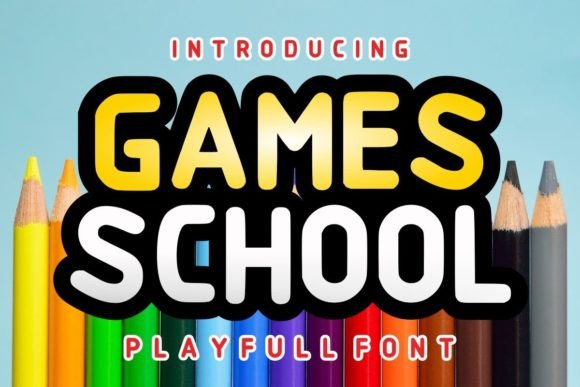
Embark on an exhilarating typographic journey with Games School Font, a display font that exudes coolness and boldness like no other. Step into a world where dynamic effects and captivating designs ignite your imagination, propelling your creative projects to new heights. Games School Font is the perfect companion for crafting captivating headlines that command attention, transforming sporting events into electrifying spectacles, and revving up automotive posters with an adrenaline-fueled edge. Unleash your creativity and design school posters that burst with energy, injecting life into every letterform. Add a touch of playful elegance to text effects and templates, making them stand out from the crowd. Let your logos and monogrammed designs radiate with personality, leaving an unforgettable mark on your audience.
With Games School Font at your fingertips, you'll discover a font that seamlessly blends the past and the future, drawing inspiration from classic arcade games and infusing it with a modern twist. Its eye-catching style is guaranteed to make your designs shine, captivating audiences with its distinctive charm. Whether you're a seasoned designer seeking to elevate your projects or a budding enthusiast looking to make a statement, Games School Font is your ultimate weapon in the realm of typography.
Dive into a world of limitless possibilities, where imagination knows no bounds. Unleash your creativity and let Games School Font guide you on an extraordinary voyage of visual expression. Transform your designs into dynamic masterpieces, leaving a lasting impression on all who encounter them. Embrace the power of this extraordinary font and unlock the gateway to a world of boundless creativity.